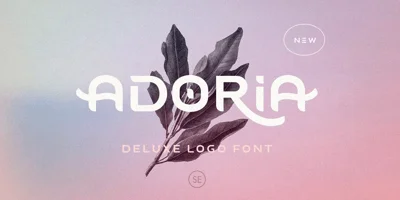
Adoria Font
Adoria Font is ideal for elegant design projects including luxury fashion brands, high-end beauty packaging, premium lifestyle magazines, sophisticated event invitations, upscale hospitality branding, fine dining restaurant materials, exclusive jewelry catalogs, and refined marketing campaigns. This graceful typeface works perfectly for luxury hotels, premium skincare lines, elegant wedding planners, high-fashion boutiques, and projects that celebrate refinement, sophistication, and timeless beauty.
What makes Adoria Font exciting is its exquisite elegant character that perfectly captures the essence of refined luxury and sophisticated grace. The font features flowing letterforms with delicate curves that reflect the artistry and attention to detail found in premium craftsmanship. Its sophisticated design elements embody the spirit of timeless elegance and cultural refinement, making it perfect for projects that need to convey exclusivity, quality, and aspirational lifestyle appeal. The carefully balanced proportions create an atmosphere of understated luxury and effortless sophistication.
Adoria Font comes in multiple family variations including thin, light, regular, medium, and bold weights. Each style maintains the distinctive elegant character while offering different levels of visual refinement and luxury presence. The font family includes sophisticated alternates, graceful ligatures, and premium variations that provide designers with comprehensive options for creating truly luxurious and aesthetically refined typographic compositions that celebrate elegant living.
Whether you're designing luxury branding, creating premium marketing materials, or developing sophisticated promotional graphics, Adoria Font provides the perfect typographic foundation for projects that celebrate elegance and refined taste. This exceptional typeface transforms ordinary text into compelling expressions of luxury lifestyle and sophisticated appeal. Download this magnificent font today and elevate your design projects with the timeless grace and elegant beauty that speaks to discerning audiences who appreciate the finest things in life and exceptional design quality.